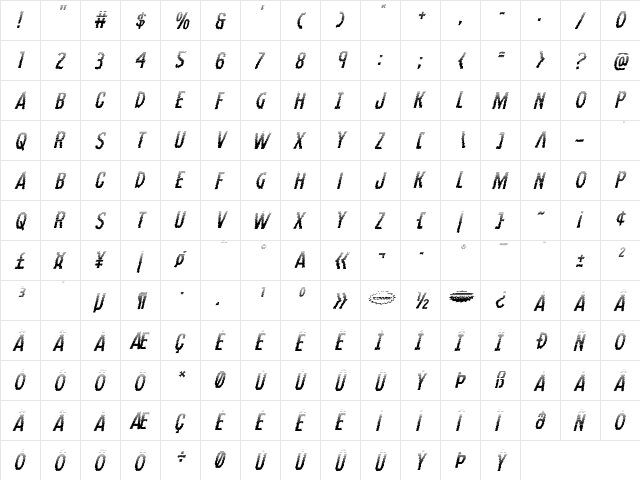
Ampire Halftone Italic Italic
Design Context for Ampire Halftone Italic Typeface
Ampire Halftone Italic is a composed and adaptable typeface that performs quietly and consistently across a wide range of design contexts. The dynamic lean of this cut emphasises speed and emphasis in any layout.
Pro Tip: Use Ampire Halftone Italic for emphasis, pull quotes, and subheadings where its slanted energy can add rhythm to the layout.